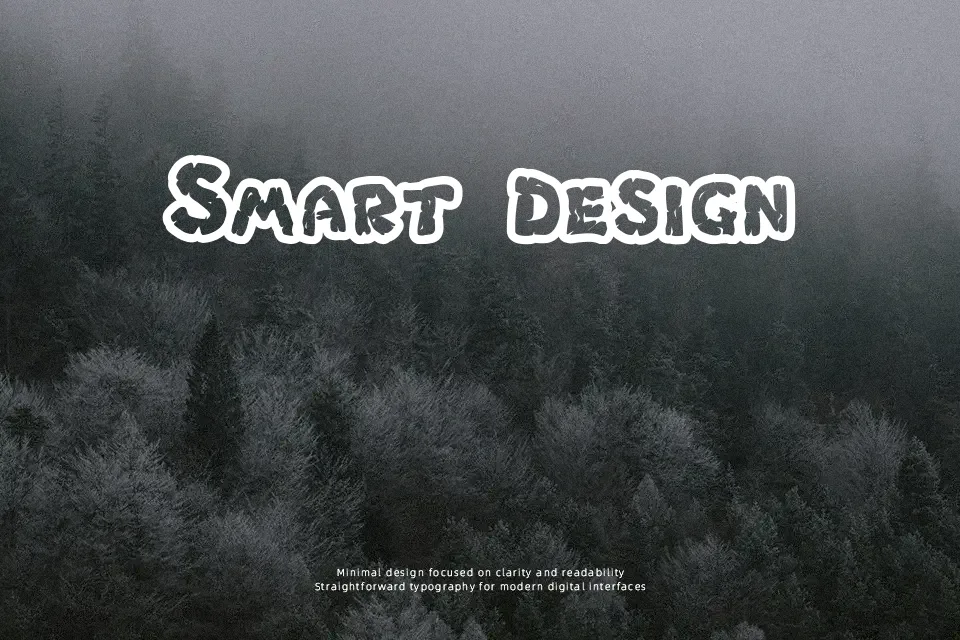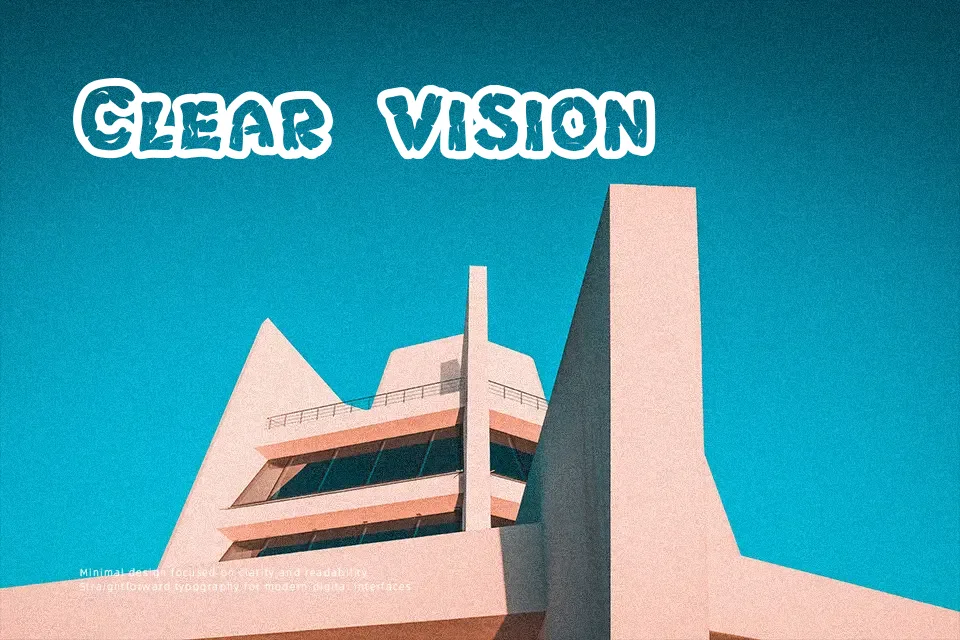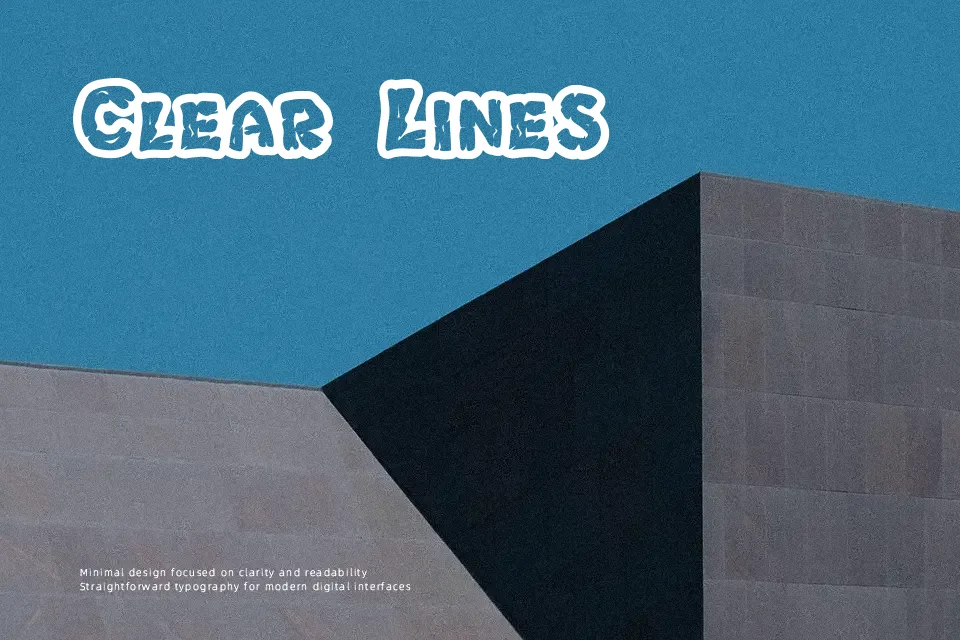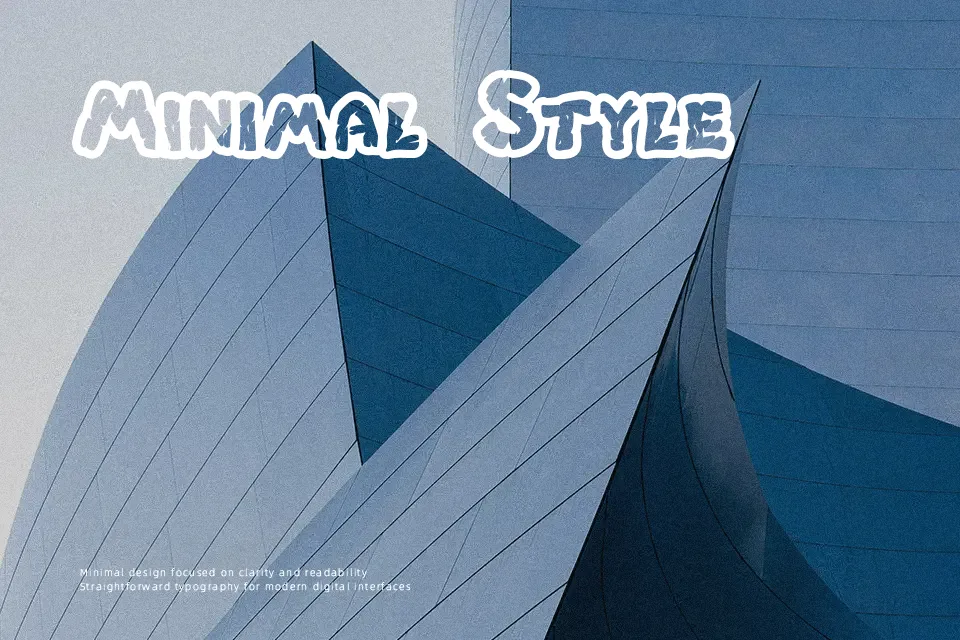
Chlorinar Font
Designed by Caffeen Fonts
Chlorinar Font is built around thick, puffy letterforms characterized by rounded corners and an outlined cartoon structure. Each glyph displays substantial stroke weight with minimal internal contrast, producing a cheerful, heavyweight aesthetic across uppercase settings. While the wide proportions and distinct exterior contours maintain high legibility in oversized headline applications, the dense geometry becomes difficult to parse when scaled down. Extended body copy and technical documents are not suitable for this typeface due to its compact internal counters. For arcade game graphics, festival signage, and toy packaging, the design offers immediate personality and commanding graphic presence.
Best For: toy packaging, comic book headers, children party posters, arcade game logos
Not Ideal For: dense body text, corporate annual reports, mobile app interface text, legal contracts